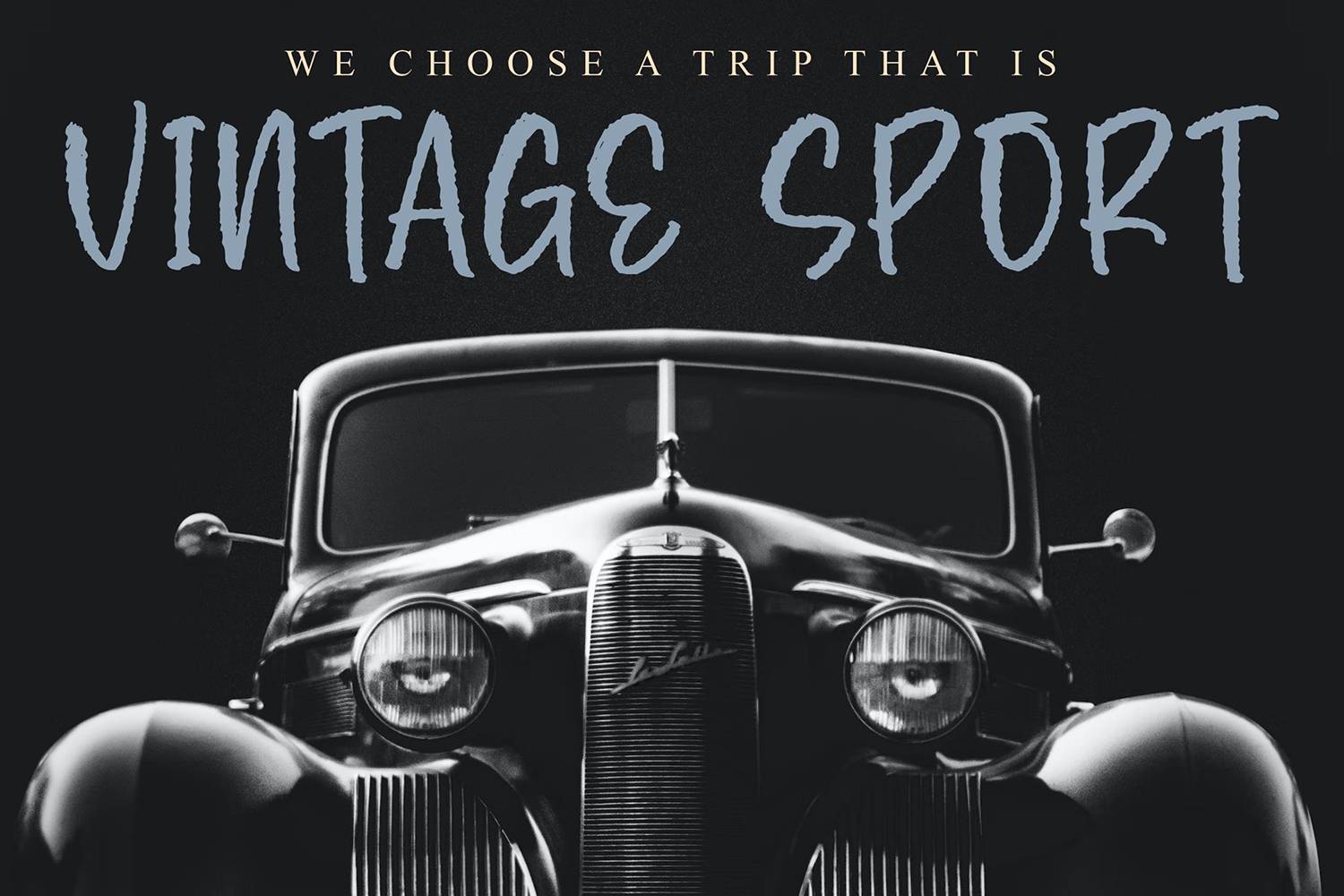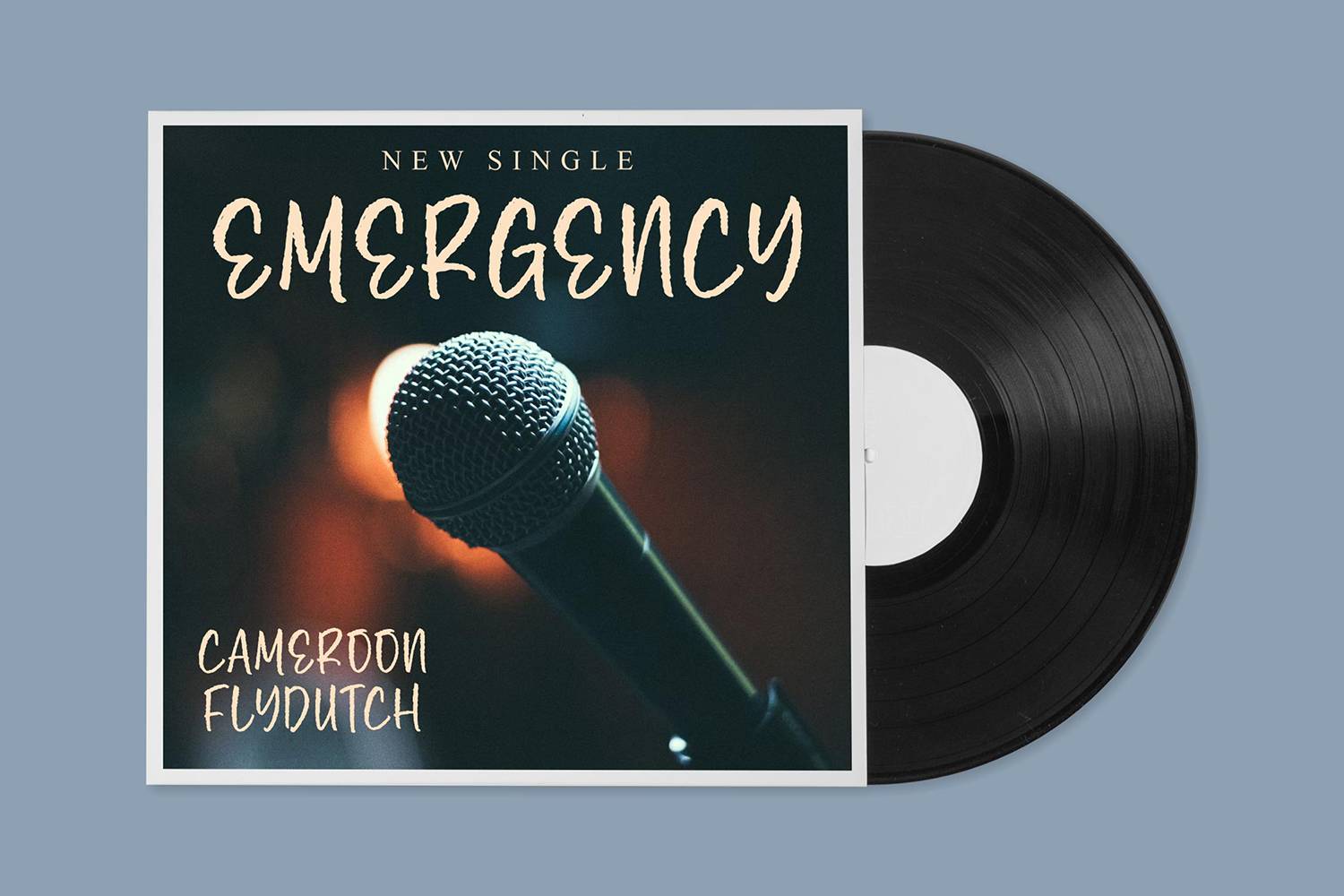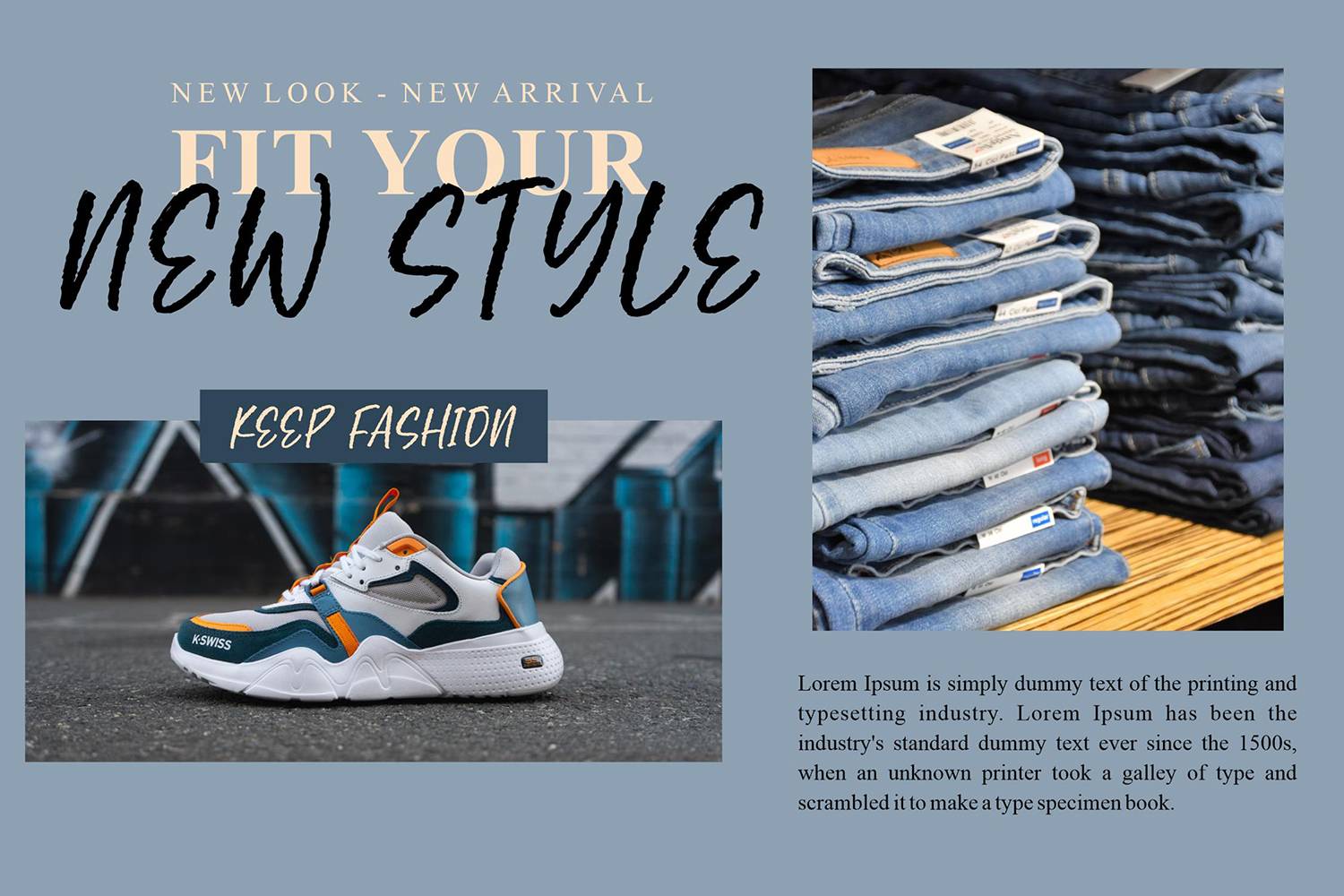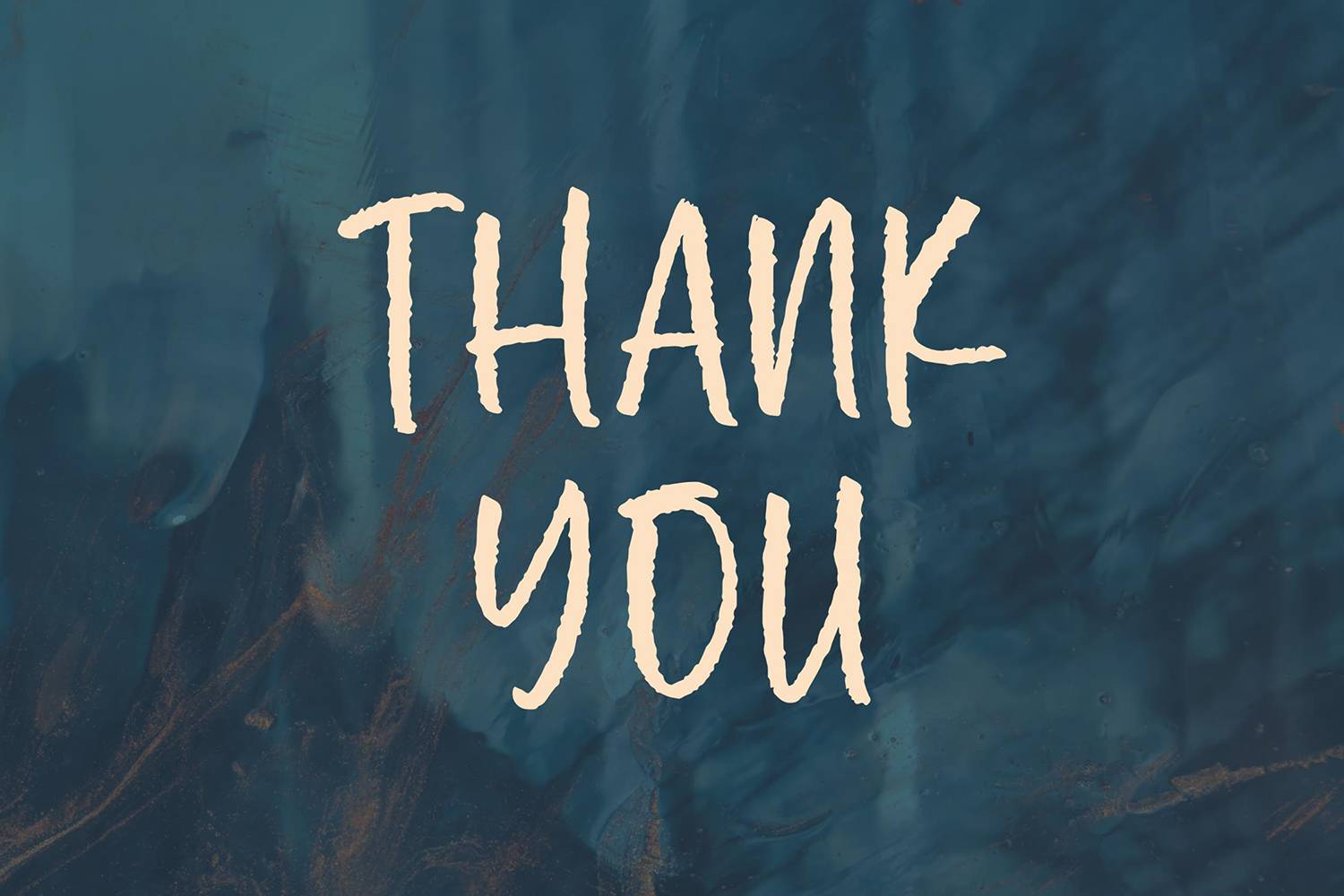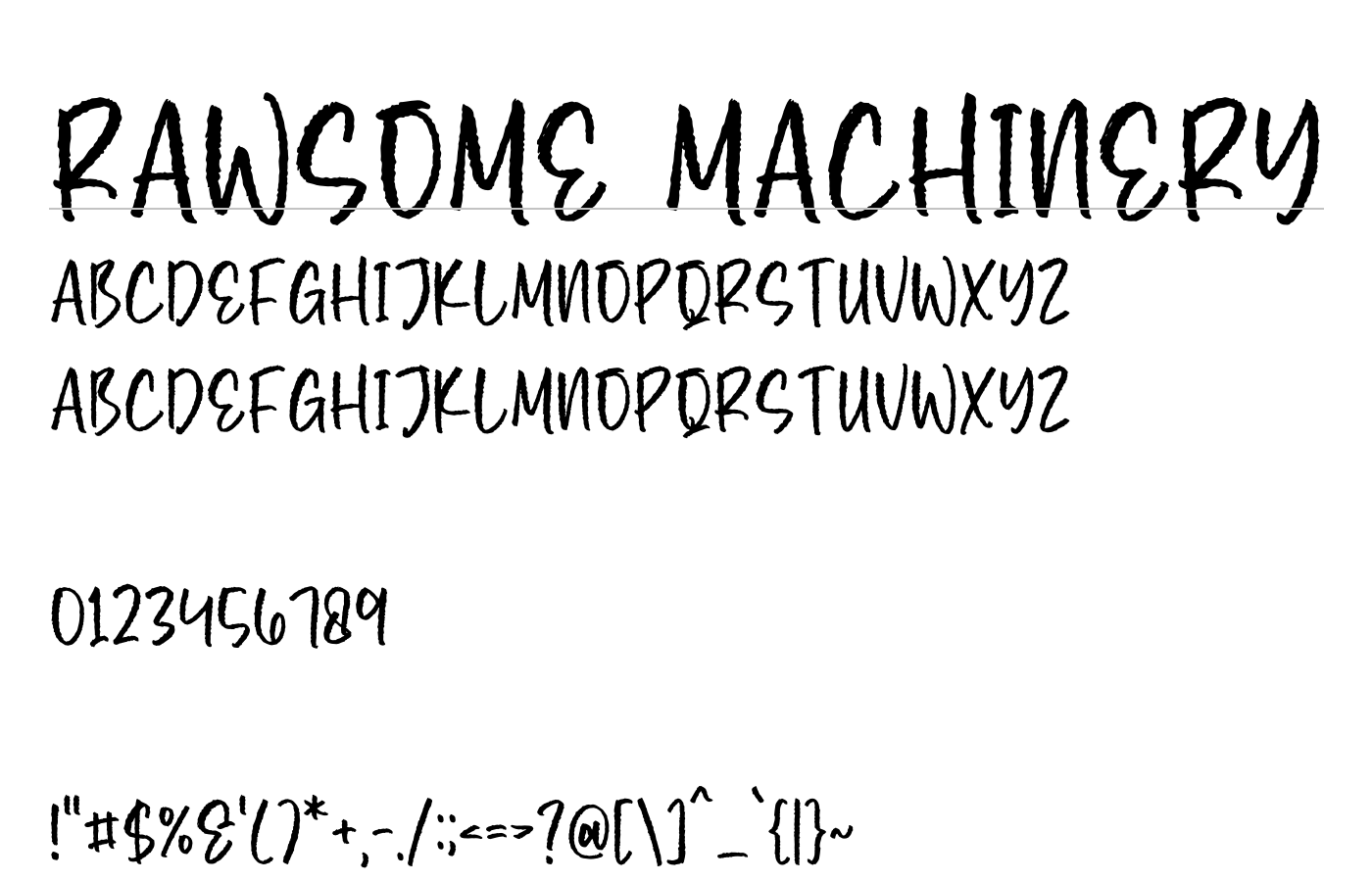
Rawsome Machinery is a casual, hand-drawn sans serif font with a tall, narrow structure and a lively, rough texture that gives it an energetic, playful feel. Its irregular strokes and informal style make it perfect for creative, artistic branding, posters, and headlines where a personal, handcrafted touch is needed. This font works especially well in designs that want to convey a spontaneous, dynamic vibe.
Rawsome Machinery Font
About Rawsome Machinery Font